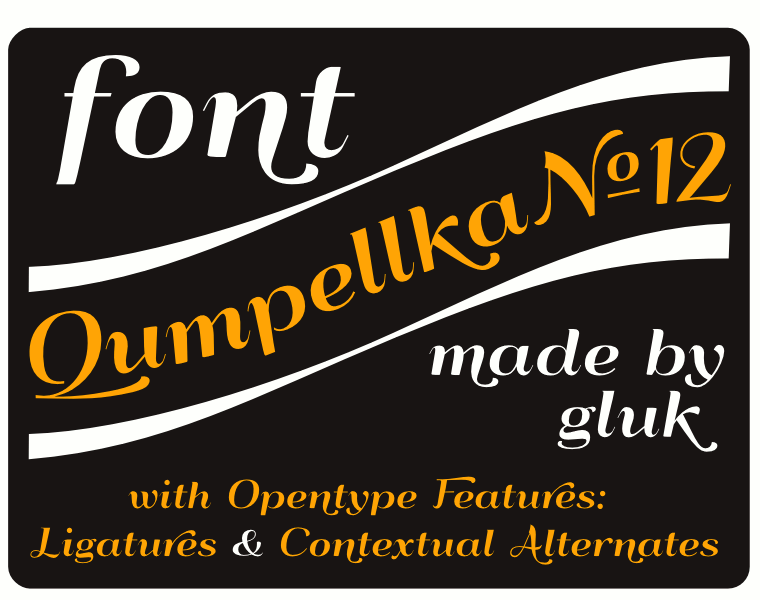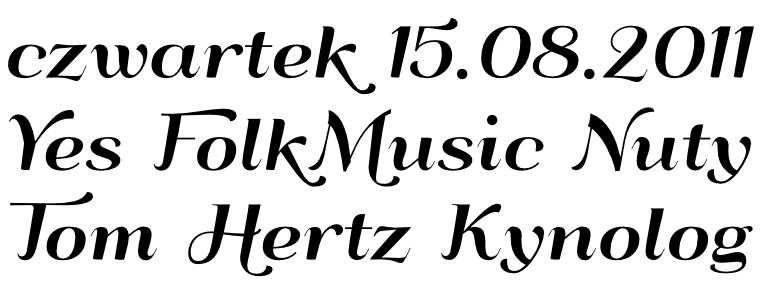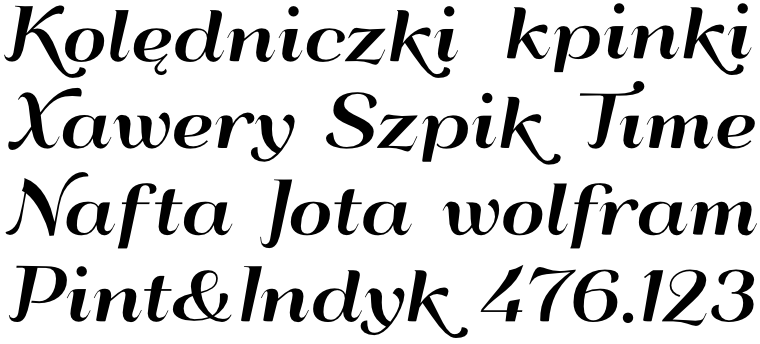
Font QumpellkaNo12 made by gluk Font QumpellkaNo12 with contextual Alternates Font QumpellkaNo12 by gluk
Font QumpellkaNo12 have many alter­na­te Glyphs (Con­tex­tual Alter­nates) [calt], Styl­is­tic Sets [ss01] [ss02] and Lig­a­tures [liga]. Leeters like A, K, M, N… have “short” alter­nate Glyphs and Let­ters n, m, l, r… have “orna­men­tal” Alter­nates which turn on depends of neigh­bor­ing Glyphs. I invite to see ⟥Online Pre­view for QumpellkaNo12→.